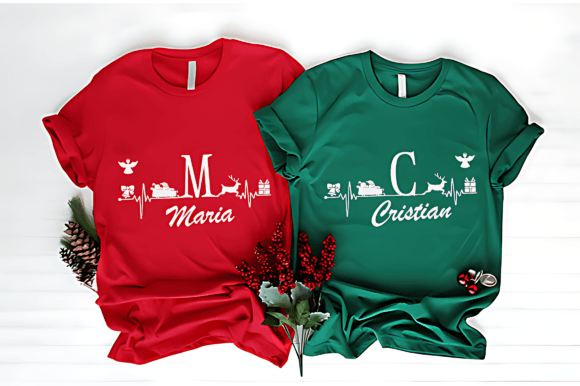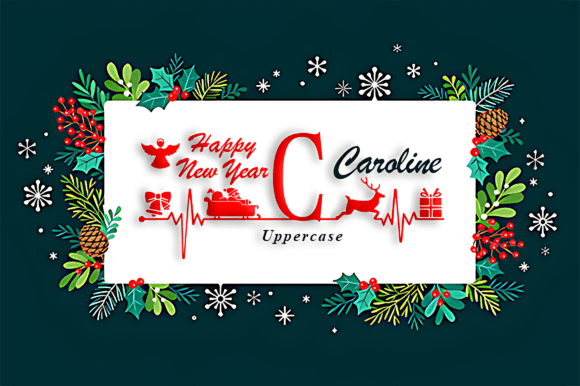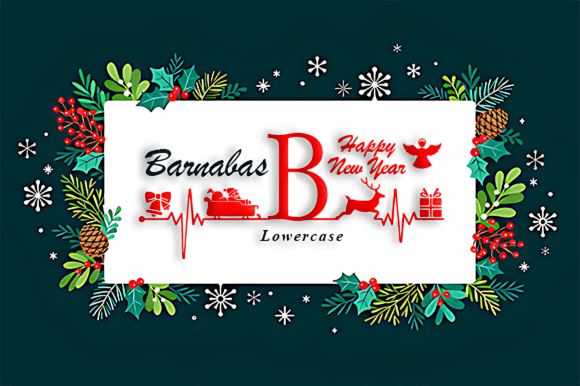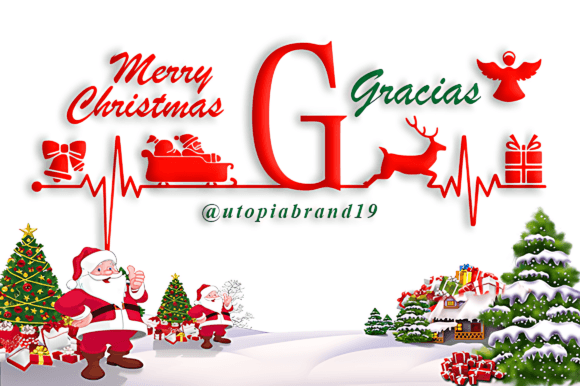
Introducing Dear Santa Monogram Font: A Charming Addition to Your Design Projects
Are you looking for a font that adds a touch of magic to your designs? Look no further than the Dear Santa Monogram Font. This highly detailed, unique, and creatively designed decorative font is perfect for a variety of projects, from cartoon-themed designs to children’s games and more. In this article, we’ll take a closer look at the Dear Santa Monogram Font and explore its features, uses, and benefits.
A Unique and Creative Font
The Dear Santa Monogram Font is a one-of-a-kind font that is sure to capture the attention of your audience. Its intricate design and charming details make it an excellent choice for designers and crafters who want to add a personal touch to their projects. Whether you’re creating a festive holiday design or a fun children’s game, this font is sure to bring a smile to people’s faces.
Features of Dear Santa Monogram Font
The Dear Santa Monogram Font has several features that make it stand out from other fonts. Some of its key features include:
- Highly detailed design: The font features intricate details that give it a unique and creative look.
- Monogram style: The font is designed in a monogram style, making it perfect for creating custom monograms and logos.
- Cartoon-themed: The font has a playful, cartoon-themed design that makes it perfect for children’s games and designs.
- Charming touch: The font adds a charming touch to any design, making it perfect for projects that need a personal touch.
Uses of Dear Santa Monogram Font
The Dear Santa Monogram Font is a versatile font that can be used in a variety of projects. Some of the most popular uses for this font include:
- Cartoon-themed designs: The font is perfect for creating cartoon-themed designs, such as children’s games, animations, and comics.
- Children’s games: The font is designed with children in mind, making it perfect for creating fun and engaging games.
- Holiday designs: The font is perfect for creating festive holiday designs, such as Christmas cards, decorations, and gifts.
- Custom monograms: The font can be used to create custom monograms and logos for personal or business use.
Benefits of Using Dear Santa Monogram Font
There are several benefits to using the Dear Santa Monogram Font in your design projects. Some of the most significant benefits include:
- Unique and creative look: The font adds a unique and creative touch to any design, making it stand out from the crowd.
- Versatile: The font can be used in a variety of projects, from cartoon-themed designs to custom monograms.
- High-quality design: The font features a high-quality design that is sure to impress your audience.
Tips for Using Dear Santa Monogram Font
Here are a few tips for using the Dear Santa Monogram Font in your design projects:
- Use it sparingly: The font is designed to be used sparingly, so use it in moderation to avoid overwhelming your design.
- Pair it with other fonts: The font can be paired with other fonts to create a unique and creative look.
- Experiment with colors: The font can be used with a variety of colors to create a unique and eye-catching design.
The Dear Santa Monogram Font is a highly detailed, unique, and creatively designed decorative font that is perfect for a variety of projects. Its charming touch and cartoon-themed design make it an excellent choice for designers and crafters who want to add a personal touch to their designs. With its versatility, ease of use, and high-quality design, this font is sure to become a favorite in your design arsenal.